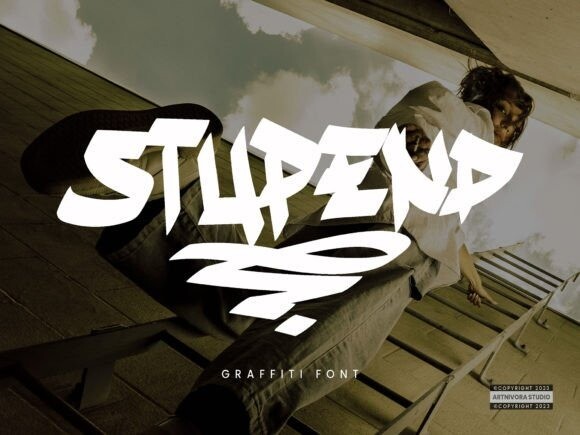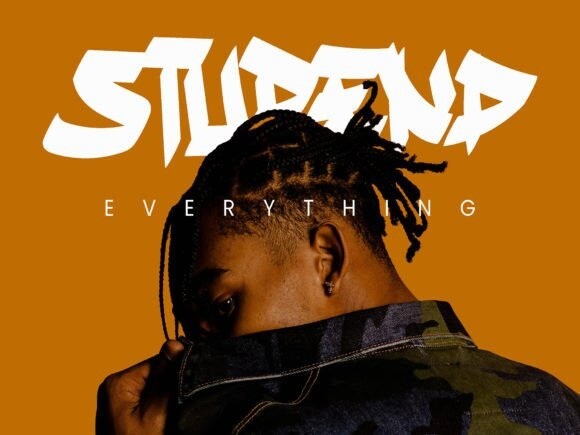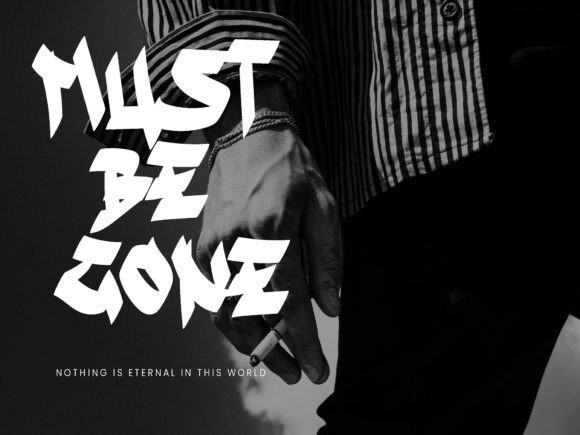
Stupend Font
Introducing **Stupend**, a simple graffiti decorative font.
So perfect for you who needs a typeface for logo designs, magazine, social media, brochure, and many more.